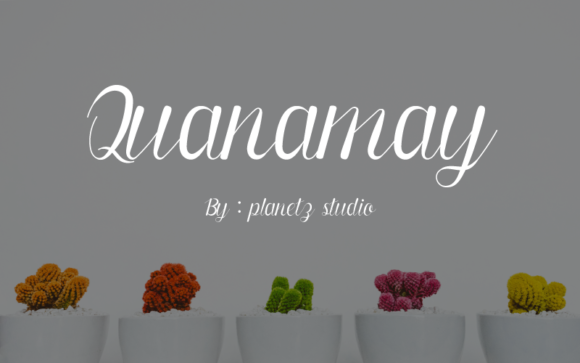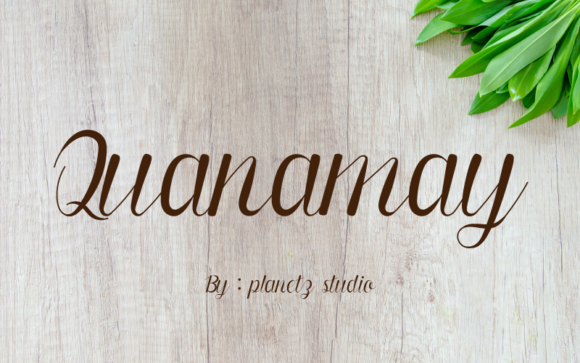
Quanamay Font
About Quanamay Font
Quanamay is a stunning handwritten font, created with the help of a brush pen. Its relaxed and cursive style, as well as its neat characters make it fit to a wide range of designs.